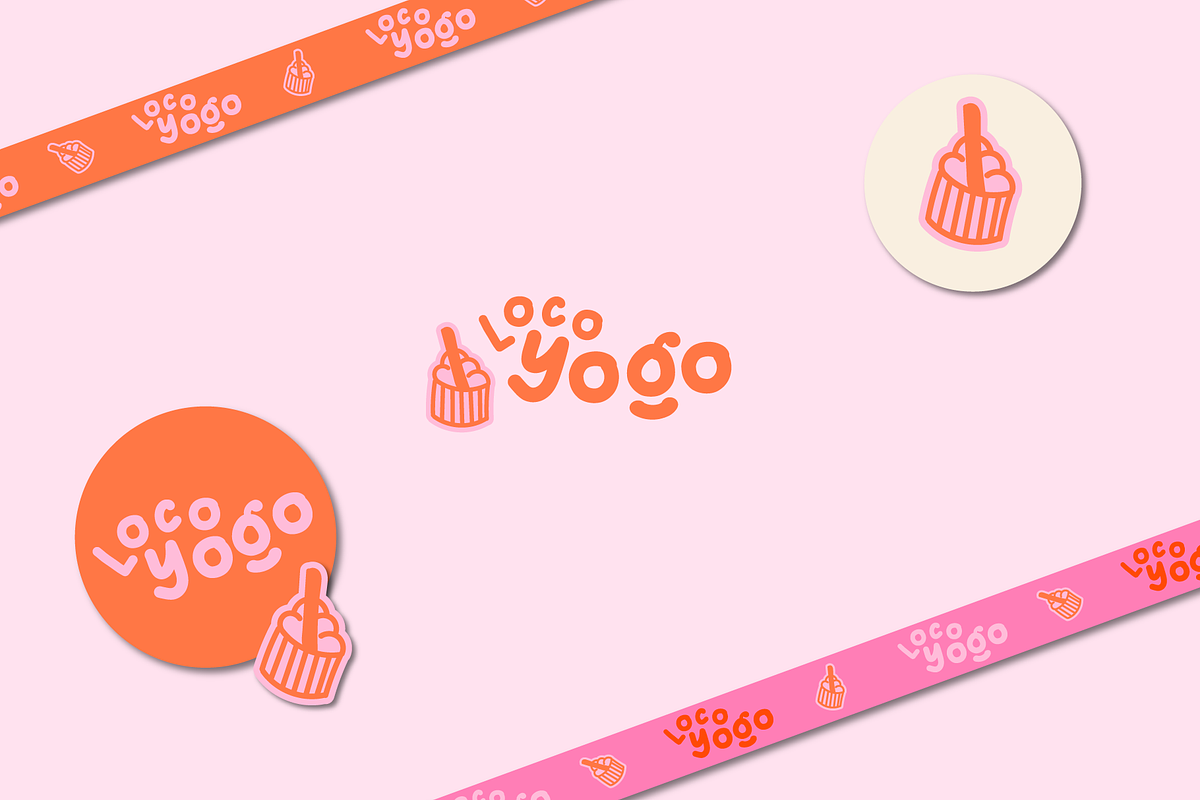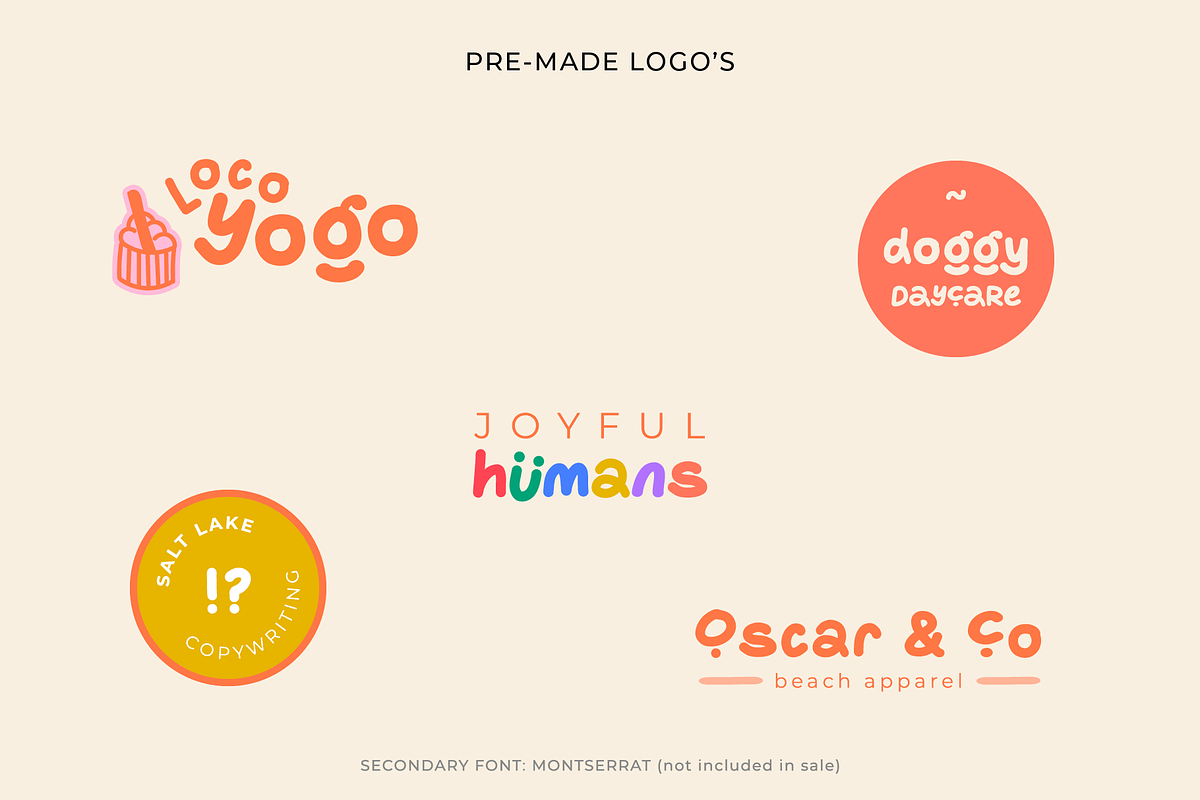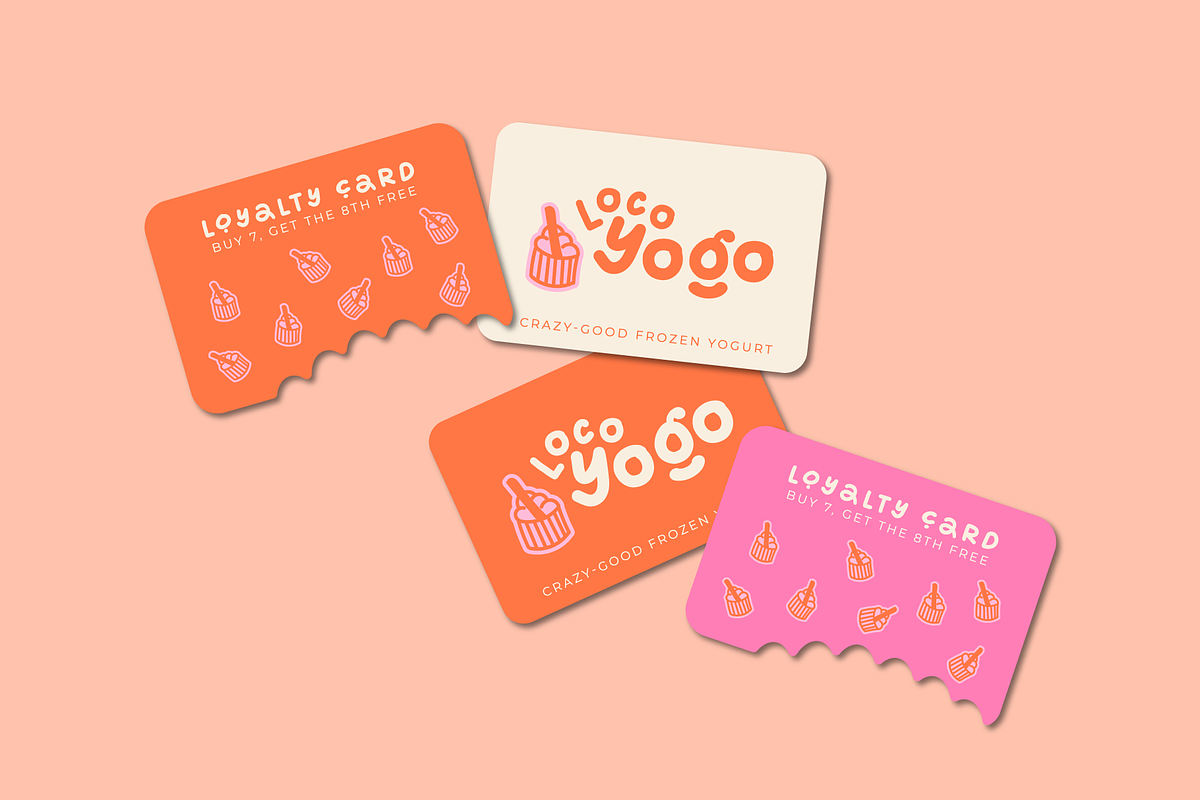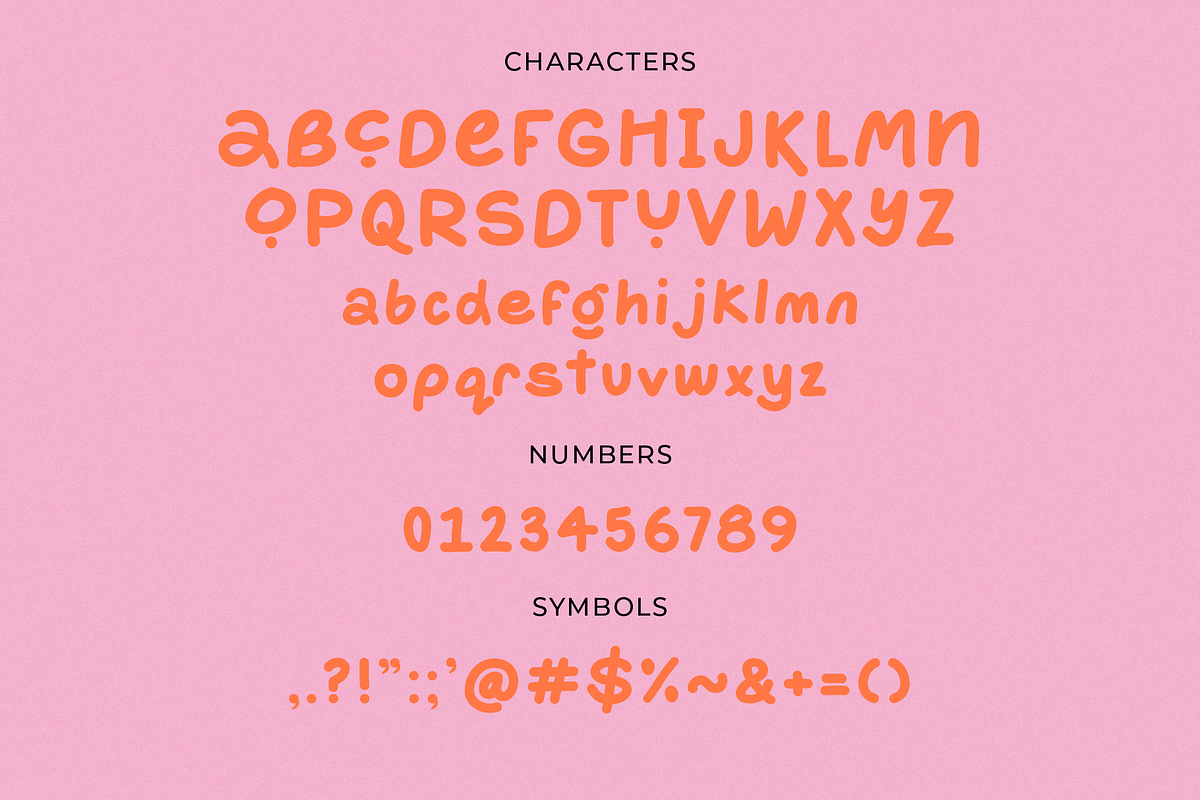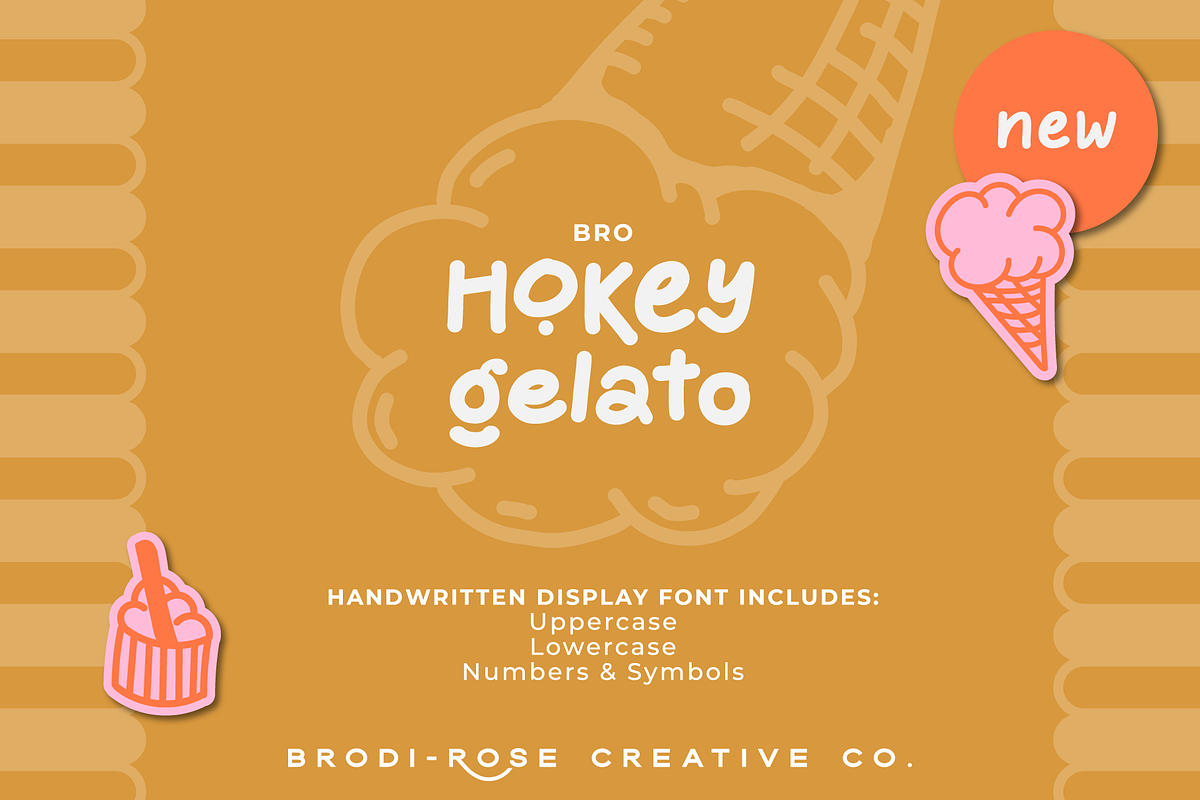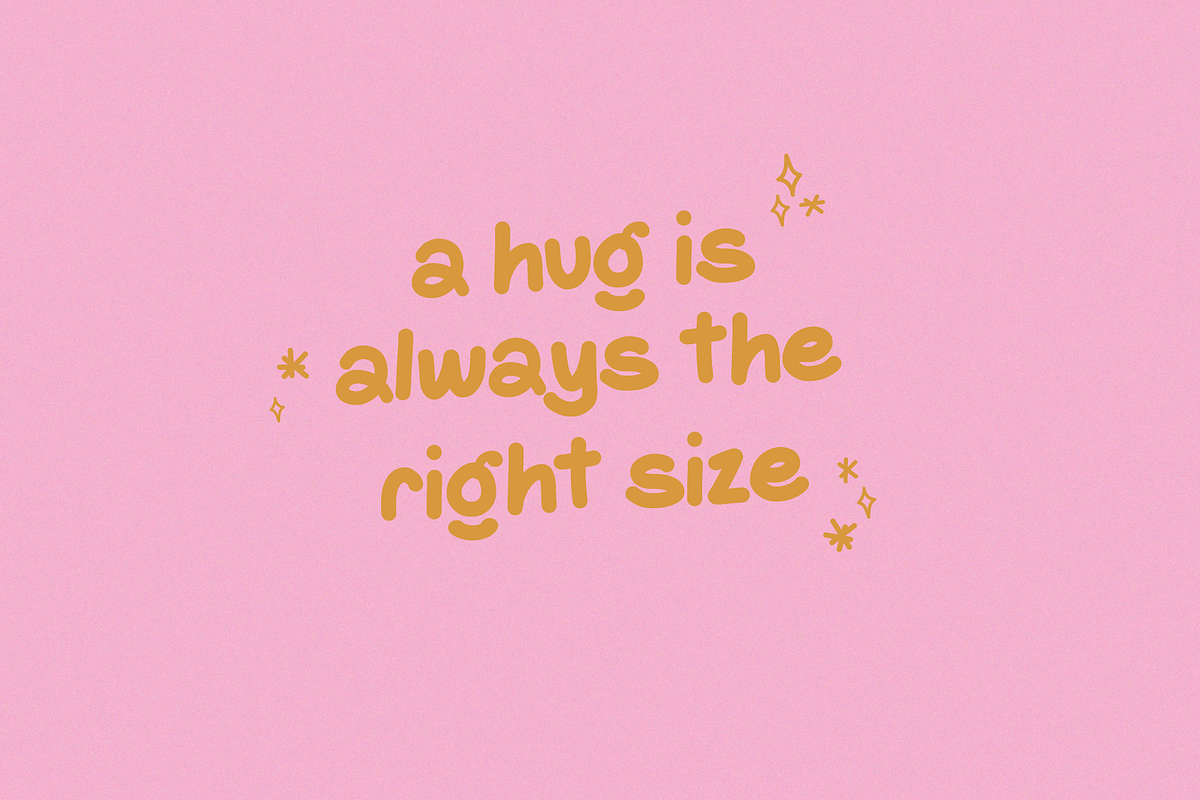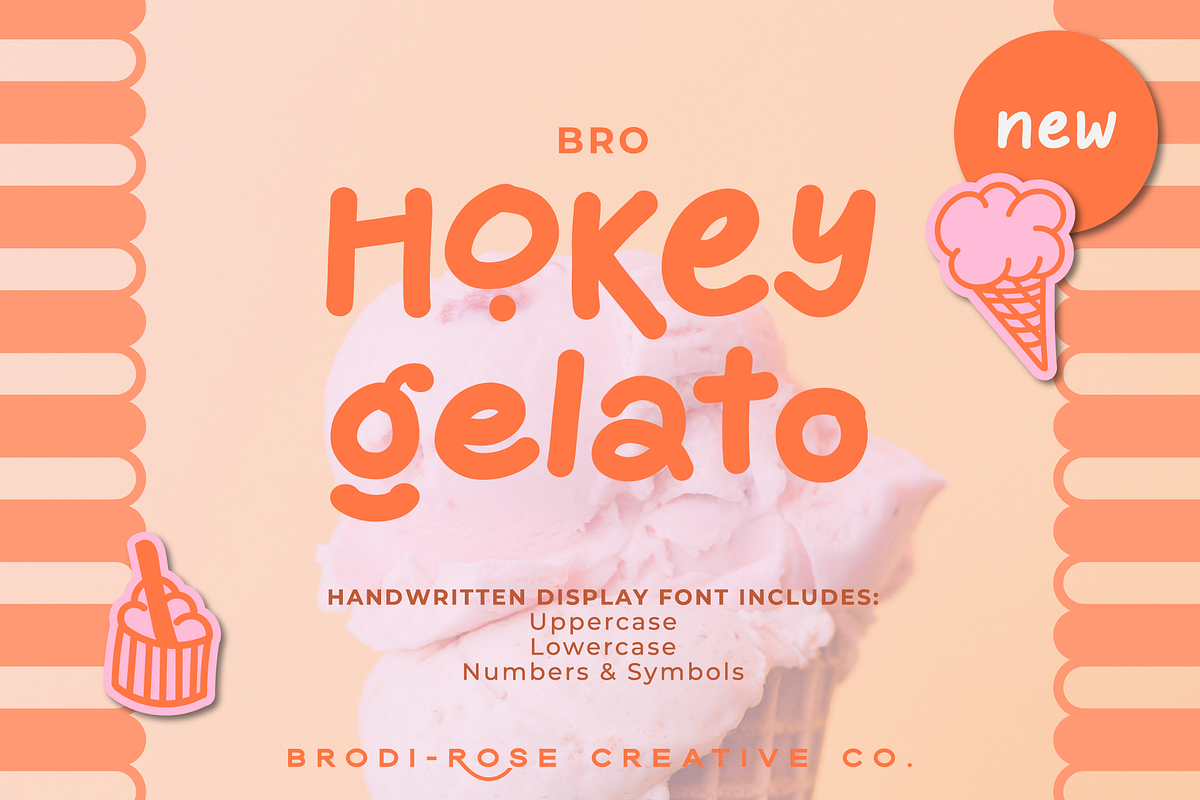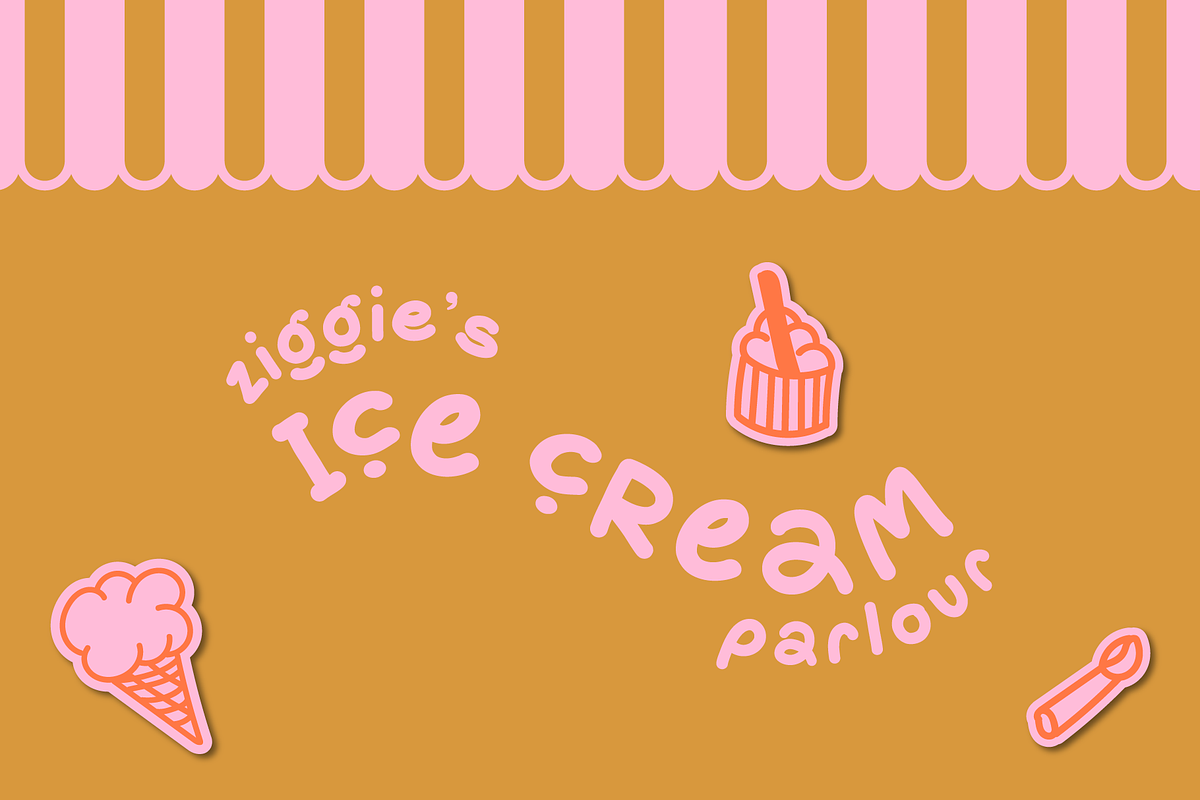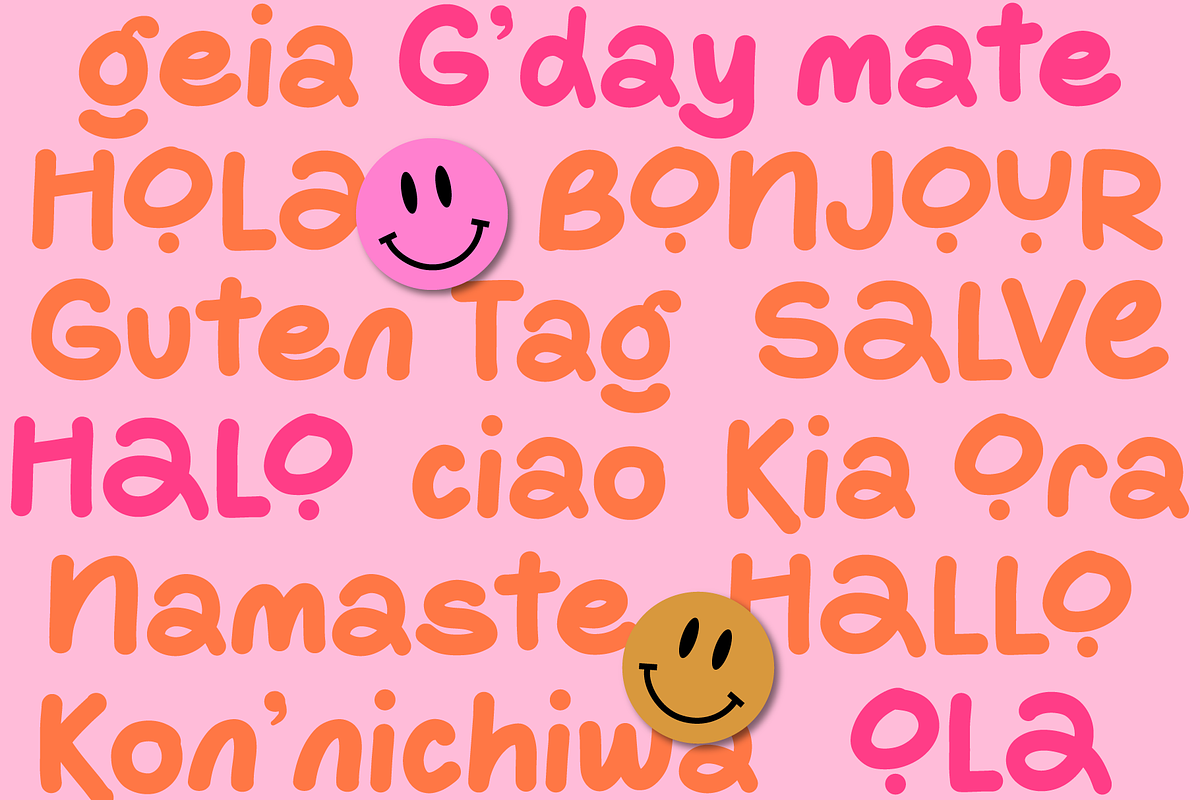
BRO Hokey Gelato
A Playful Handwritten Display Font
Introducing Hokey Gelato - a very fun, approachable and unique handwritten display font for your next project.
- Uppercase Characters
- Lowercase Characters
- Some Symbols